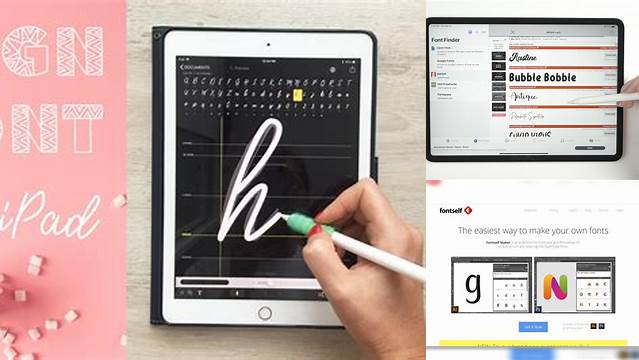
Make Your Own Font On IPad: Easy Guide
Hey guys! Ever dreamt of having your very own font, a unique typeface that screams you? Well, if you're an iPad user, you're in luck! Creating your own fonts on your iPad is totally doable, and it's a fantastic way to express your creativity and add a personal touch to your projects. Whether you're a graphic designer, a lettering enthusiast, or just someone who loves to doodle, this guide will walk you through the process step-by-step. Let's dive in and learn how to make your own fonts on your iPad!
Why Create Your Own Fonts?
Before we jump into the how, let's talk about the why. Why should you bother creating your own fonts? There are actually a ton of awesome reasons!
- Uniqueness and Branding: In today's world, standing out is key. Having a custom font can significantly enhance your personal or brand identity. Imagine using a font that no one else has – how cool is that? It adds a layer of authenticity and professionalism to your work, making your designs instantly recognizable.
- Personal Expression: Fonts are more than just letters; they're a form of art. Creating your own font allows you to express your personal style and aesthetic. Do you love elegant curves? Or maybe bold, geometric shapes? Your font can reflect your personality and artistic vision. This is a powerful way to infuse your projects with your unique voice and style.
- Creative Control: When you use pre-made fonts, you're limited to what's available. But when you create your own, the possibilities are endless! You have complete control over every detail, from the thickness of the lines to the shape of the serifs. This level of control allows you to tailor your fonts to specific projects and create exactly the look you're going for.
- Fun and Rewarding: Let's be honest, creating your own font is just plain fun! It's a challenging but incredibly rewarding process that allows you to learn new skills and unleash your inner artist. There's a real sense of accomplishment that comes with seeing your own typeface come to life. It's a fantastic way to explore your creativity and push your artistic boundaries.
- Commercial Opportunities: If you're feeling ambitious, you could even sell your fonts! There's a huge market for unique and high-quality fonts, and if you create something special, you could potentially earn some serious cash. This can turn your passion for typography into a profitable venture, allowing you to share your creations with the world.
Tools You'll Need to Make Fonts on Your iPad
Okay, so you're convinced that creating your own font is awesome. Now, what tools do you need to get started? Luckily, there are some fantastic apps available for the iPad that make the process surprisingly easy and intuitive. Here are a few of the most popular options:
- FontForge (via a Linux emulator): While FontForge isn't natively available on iPadOS, you can actually run it using a Linux emulator like iSH. This is a more advanced option, but it gives you access to a powerful and free font editor that's widely used in the typography industry. FontForge offers a comprehensive set of tools for designing and editing fonts, making it a great choice for experienced designers or those who want to dive deep into the technical aspects of font creation. However, be aware that setting up a Linux emulator can be a bit tricky, so this option is best suited for users who are comfortable with command-line interfaces and technical configurations. You'll have complete control over every aspect of your font design, but there's a steeper learning curve involved.
- Calligraphr: This is a web-based app that allows you to create fonts by handwriting characters on a template. You simply print out the template, fill in the boxes with your letters, scan it with your iPad, and Calligraphr will generate a font file. It’s a simple and effective way to turn your handwriting into a usable font. Calligraphr is particularly useful for creating fonts with a natural, handwritten feel. It's great for adding a personal touch to invitations, cards, and other projects. The free version allows you to create a limited number of characters, while the paid version unlocks additional features and characters. This approach gives your font a genuine, human-made quality that's hard to replicate with digital drawing tools.
- Glyphs Mini: Glyphs Mini is a simplified version of the professional font editor Glyphs. It’s a powerful and user-friendly app that’s perfect for creating custom fonts on your iPad. Glyphs Mini offers a range of features, including vector drawing tools, kerning and spacing adjustments, and OpenType feature support. It's a fantastic option for those who want more control over the design process but don't need all the bells and whistles of a full-fledged font editor. Glyphs Mini is designed to be intuitive and efficient, allowing you to focus on the creative aspects of font design. The interface is clean and well-organized, making it easy to navigate and use. With Glyphs Mini, you can create professional-quality fonts directly on your iPad.
In addition to these apps, you'll also need a stylus (like the Apple Pencil) for drawing your characters. The Apple Pencil provides precise control and a natural drawing experience, making it ideal for font design. You'll also need a good dose of patience and a willingness to experiment! Creating a font takes time and effort, but the results are well worth it. Don't be afraid to try different approaches and explore your creative possibilities. The key is to have fun and enjoy the process of bringing your font to life.
Step-by-Step Guide: Creating Your Font
Alright, let's get down to the nitty-gritty. Here's a step-by-step guide to creating your own fonts on your iPad, using Glyphs Mini as an example (but the general principles apply to other apps as well):
What are some common font design mistakes to avoid?
Some common mistakes include inconsistent stroke thicknesses, poor spacing and kerning, and a lack of readability. Pay attention to these details and test your font thoroughly to avoid these issues.
Is it difficult to make my own font?
It might seem daunting, but with the user-friendly apps available for iPad, it's more accessible than ever. There's definitely a learning curve, but it's a rewarding process, and you don't need to be a pro to get started.